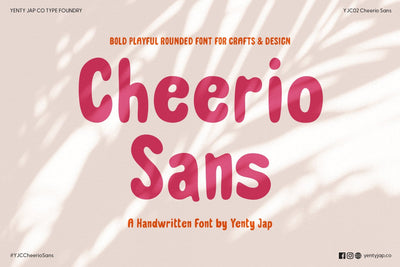
YJC Cheerio Sans Font - a quirky, hand-drawn font
Meet YJC Cheerio Sans, a quirky, hand-drawn font brimming with personality. With its rounded edges, bold strokes, and playful vibe, this font adds warmth and a touch of charm to your designs. It’s approachable, fun, and charismatic—perfect for bringing a friendly, human touch to your creative projects.
Perfect For:
- Invitations & Greeting Cards: Whether it’s a birthday, wedding, or just a hello, Cheerio Sans makes your messages feel personal and heartfelt.
- Children’s Products: Its playful energy pairs beautifully with toy packaging, books, or anything made for little ones.
- Branding for Small Businesses: Great for cozy coffee shops, artisan bakeries, or boutique stores looking to feel approachable and unique.
- Social Media Graphics: Create attention-grabbing posts that radiate joy and authenticity.
- DIY Craft Projects: Circuit users and crafters will love how versatile and easy-to-read this font is, even at smaller sizes.